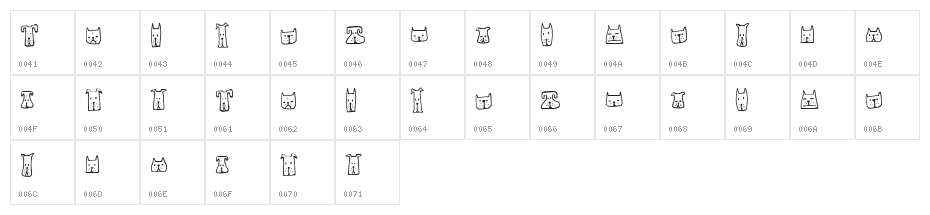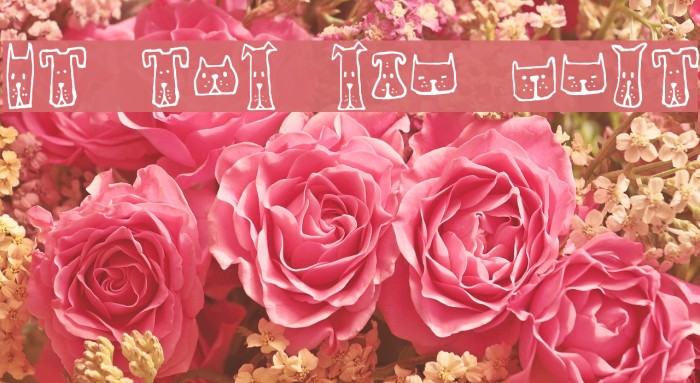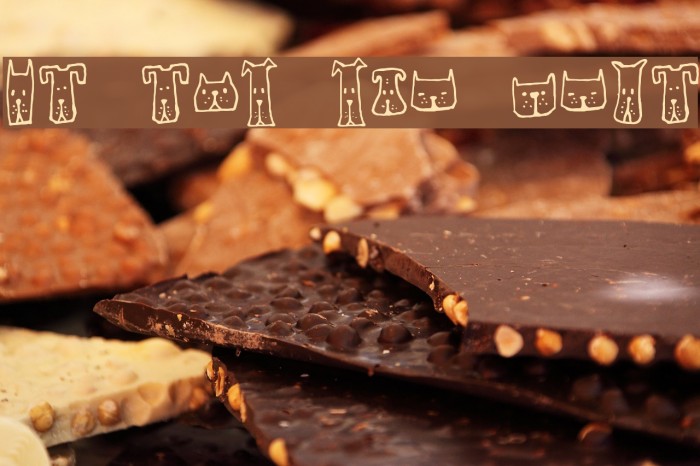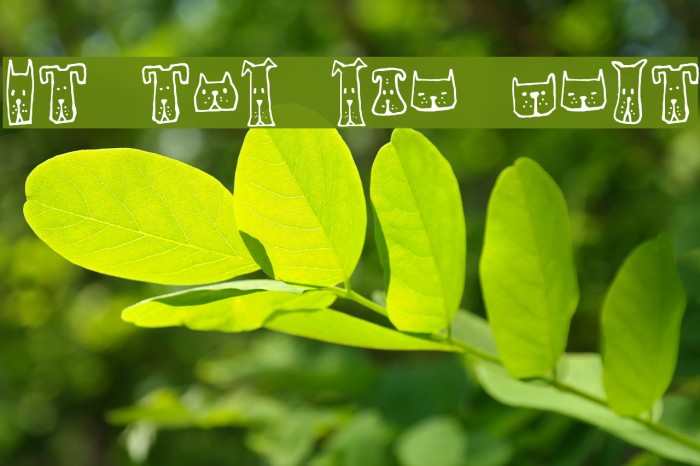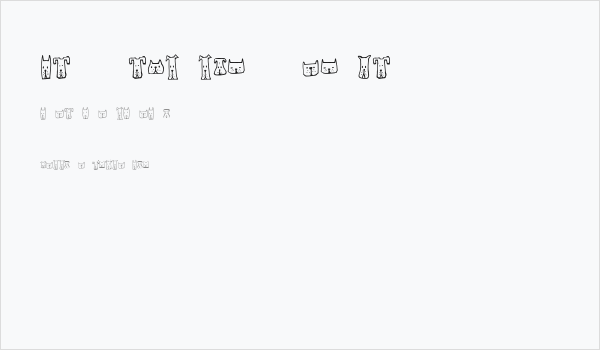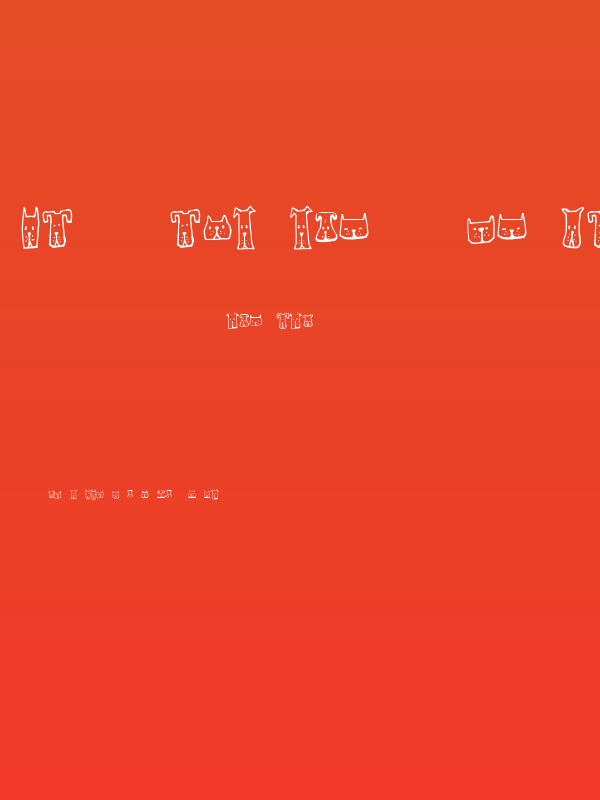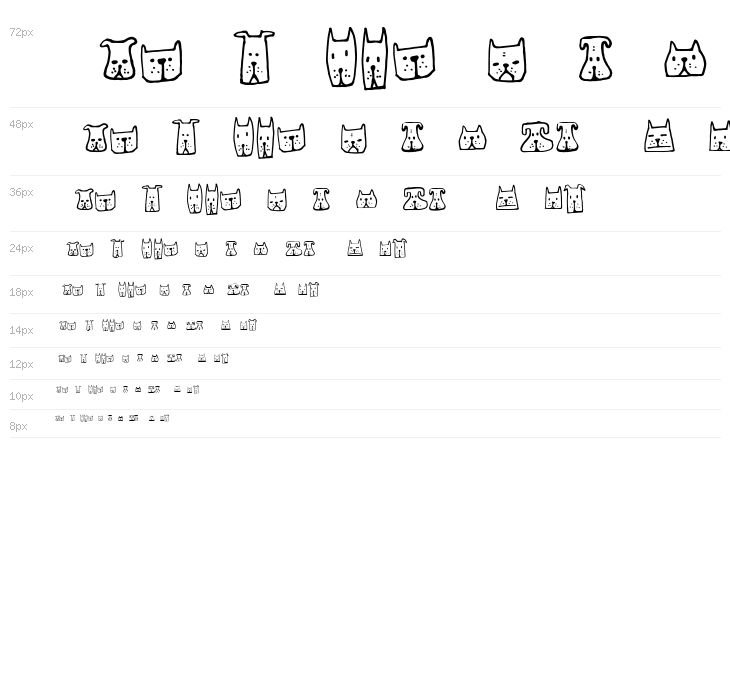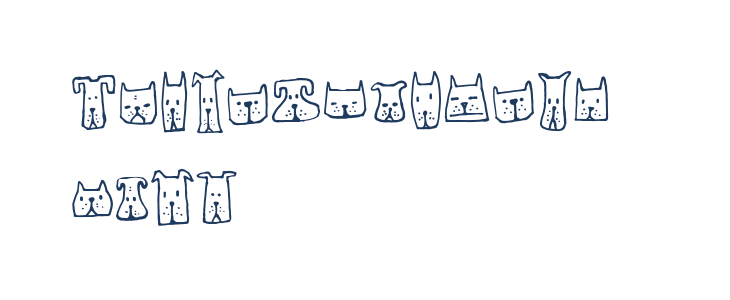
Cats and Dogs Regular Font
Cats and Dogs Regular Description
This playful and whimsical font features characters designed as charming cat and dog faces. Each letter is uniquely crafted to resemble either a cat or a dog, complete with ears, eyes, and noses, giving the font a lively and animated appearance. The style is hand-drawn, with a casual and friendly vibe, making it perfect for projects that require a touch of humor and creativity. The font maintains a consistent line weight throughout, ensuring readability while still embracing its decorative nature. The spacing between characters is normal, allowing each animal face to stand out distinctly.
| Use Case | Logos, Posters, Children's books |
| Proposed Projects | Ideal for children's books, pet-related branding, playful posters, and greeting cards. |